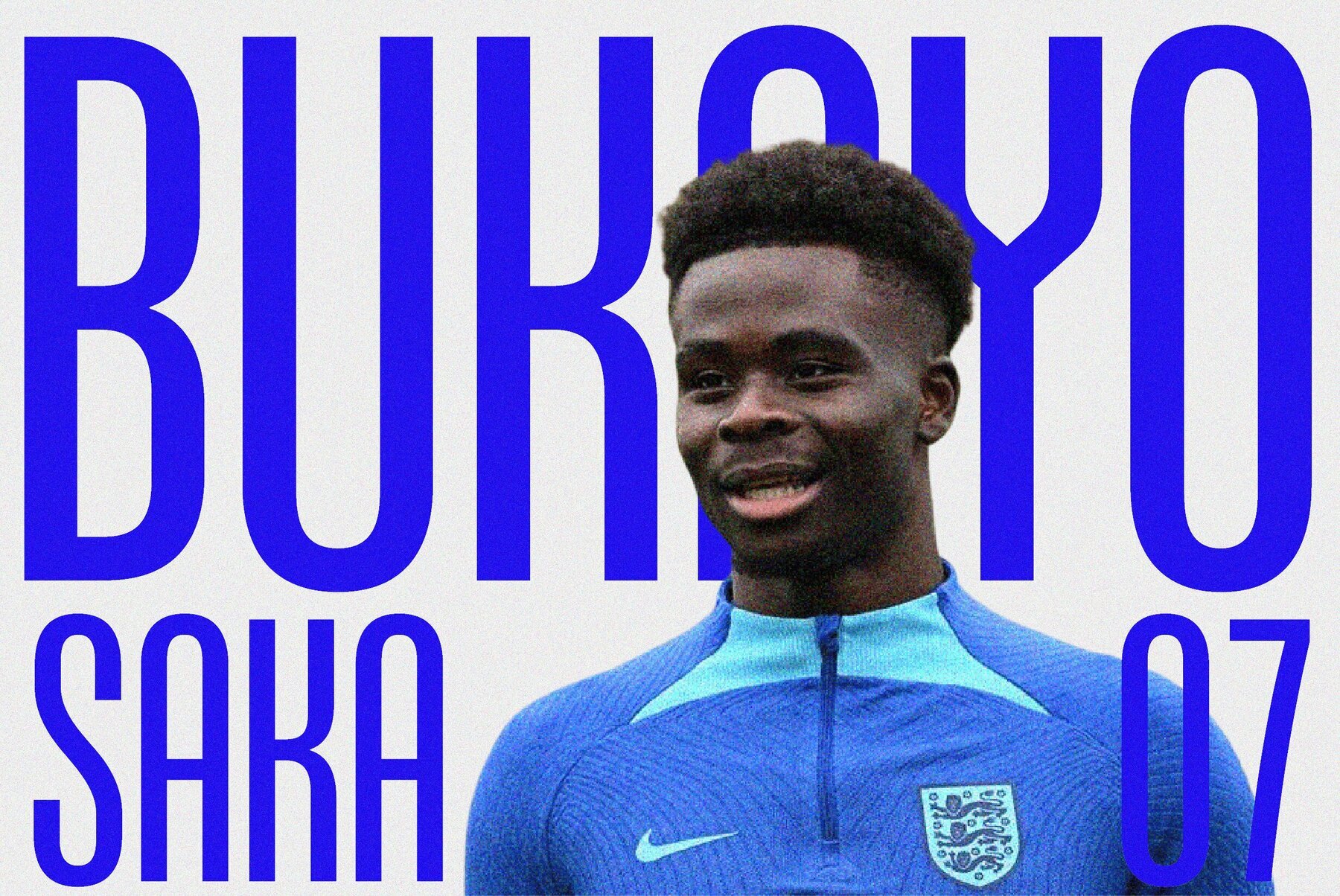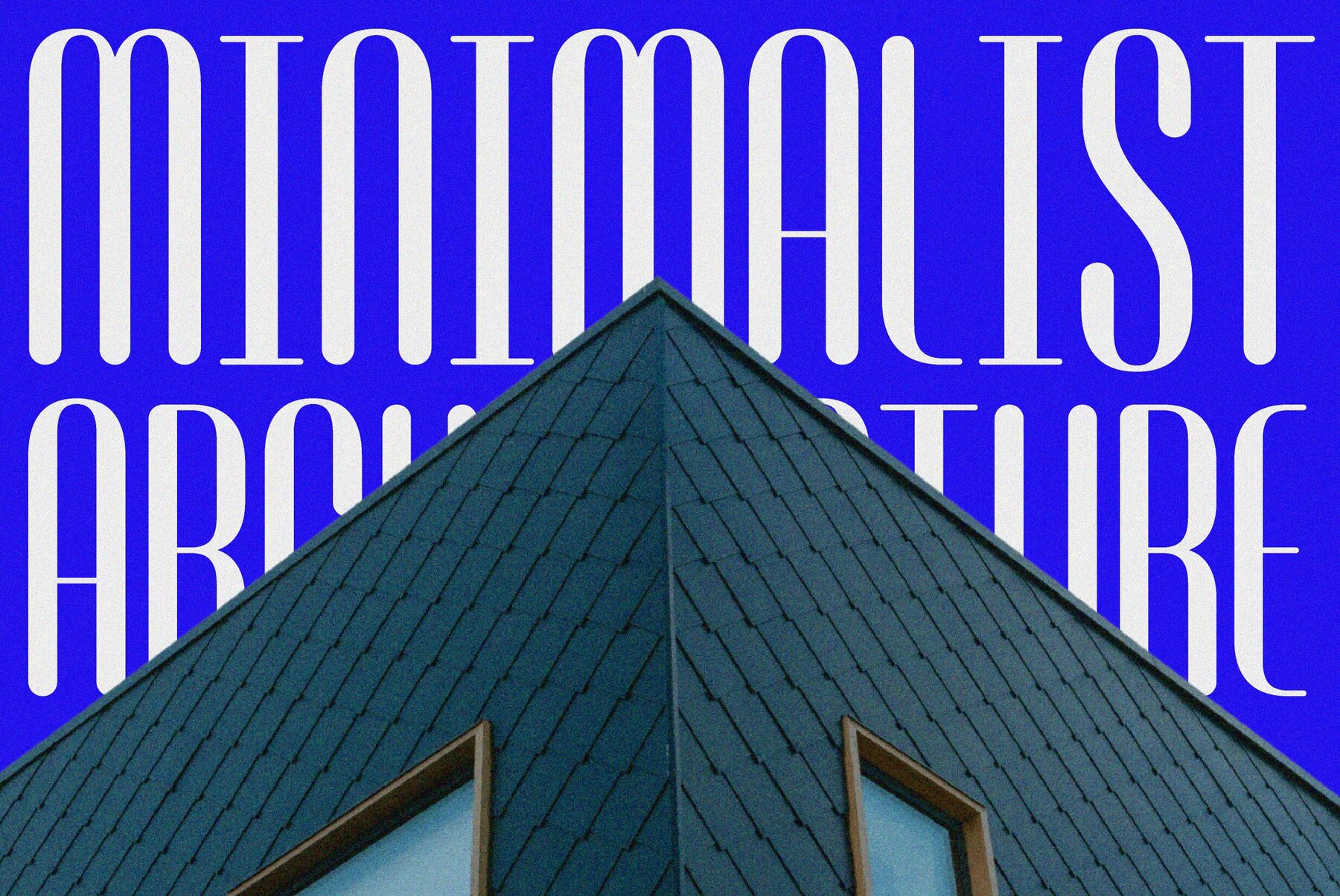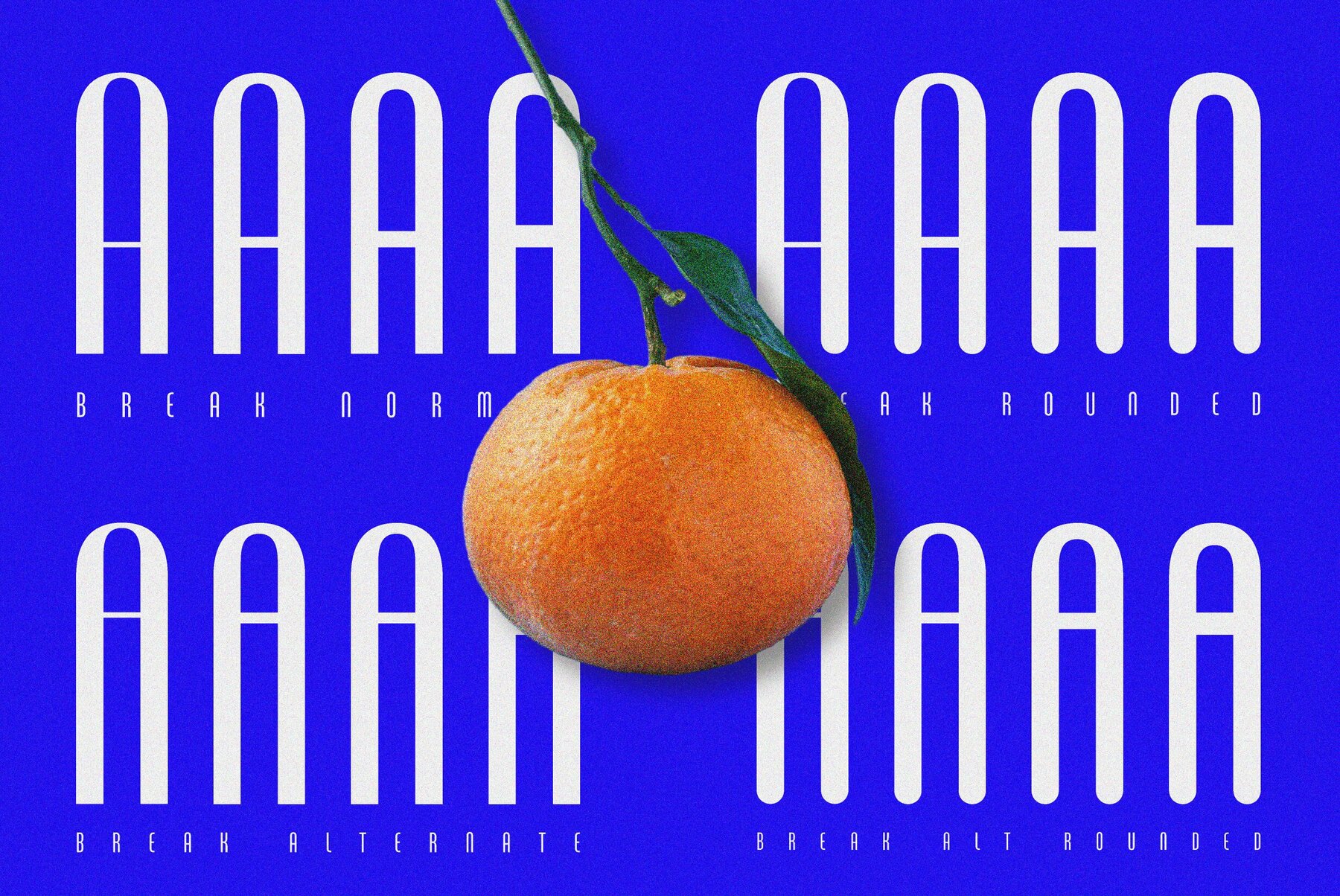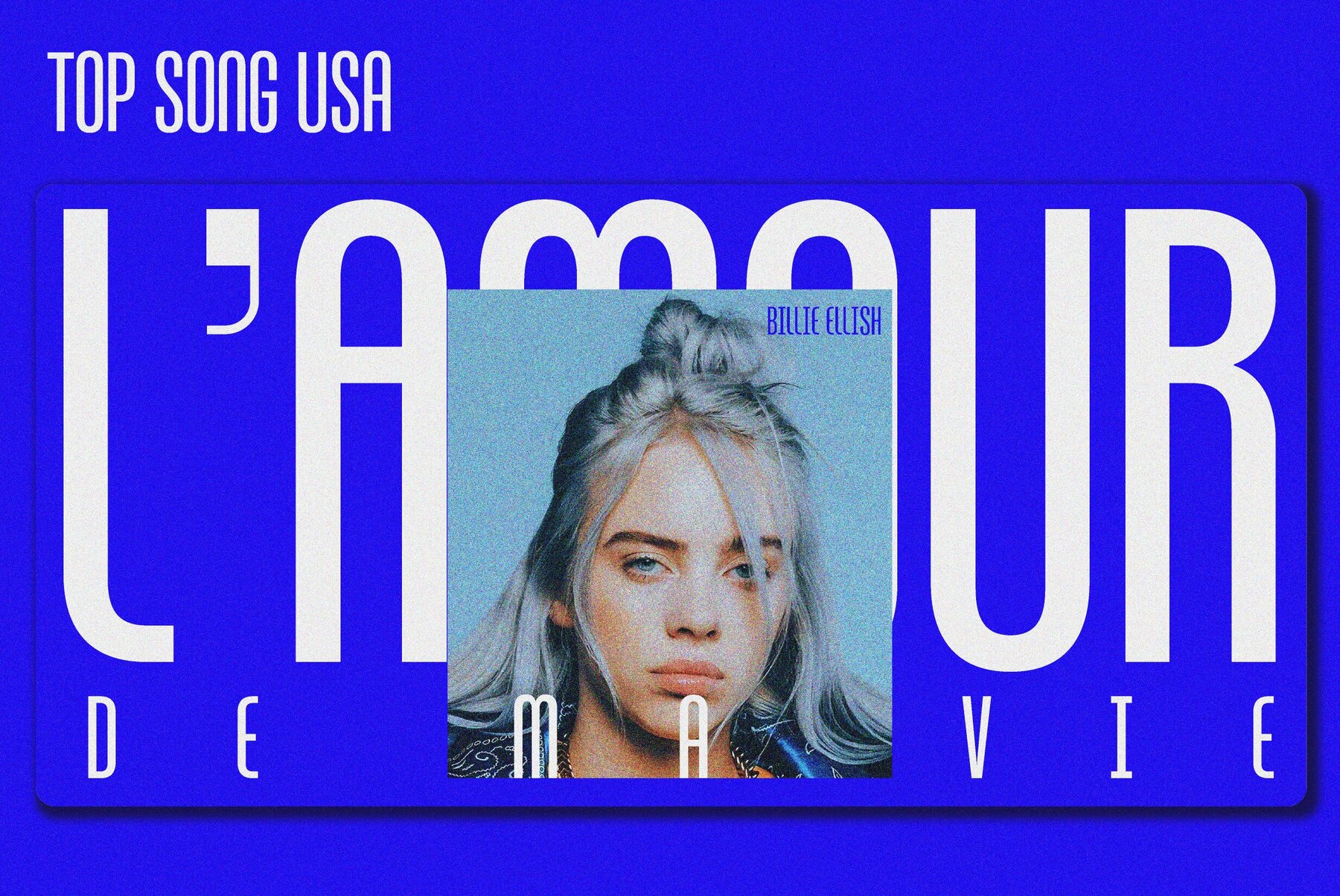
ZT Break Fast Font
ZT Break Fast is a sans serif, condensed font that effortlessly combines modern aesthetics with remarkable versatility. Expertly crafted in four distinct styles—normal, normal rounded, alternative with higher vertical line height, and alternative rounded—it offers a broad spectrum of creative possibilities. Each style is available in four different weights: thin, extra light, light, and regular. This extensive range provides designers with the flexibility to tailor their work to a variety of projects.
Whether you're working on branding, editorial layouts, or web design, ZT Break Fast is a reliable choice. The normal style offers a classic look, while the normal rounded style adds a friendly and approachable feel. The alternative with higher vertical line height is perfect for achieving a sleek and elegant appearance, and the alternative rounded style combines elegance and warmth. Carefully designed with high attention to detail, ZT Break Fast guarantees a professional and impressive outcome, making it an invaluable asset for any design project.